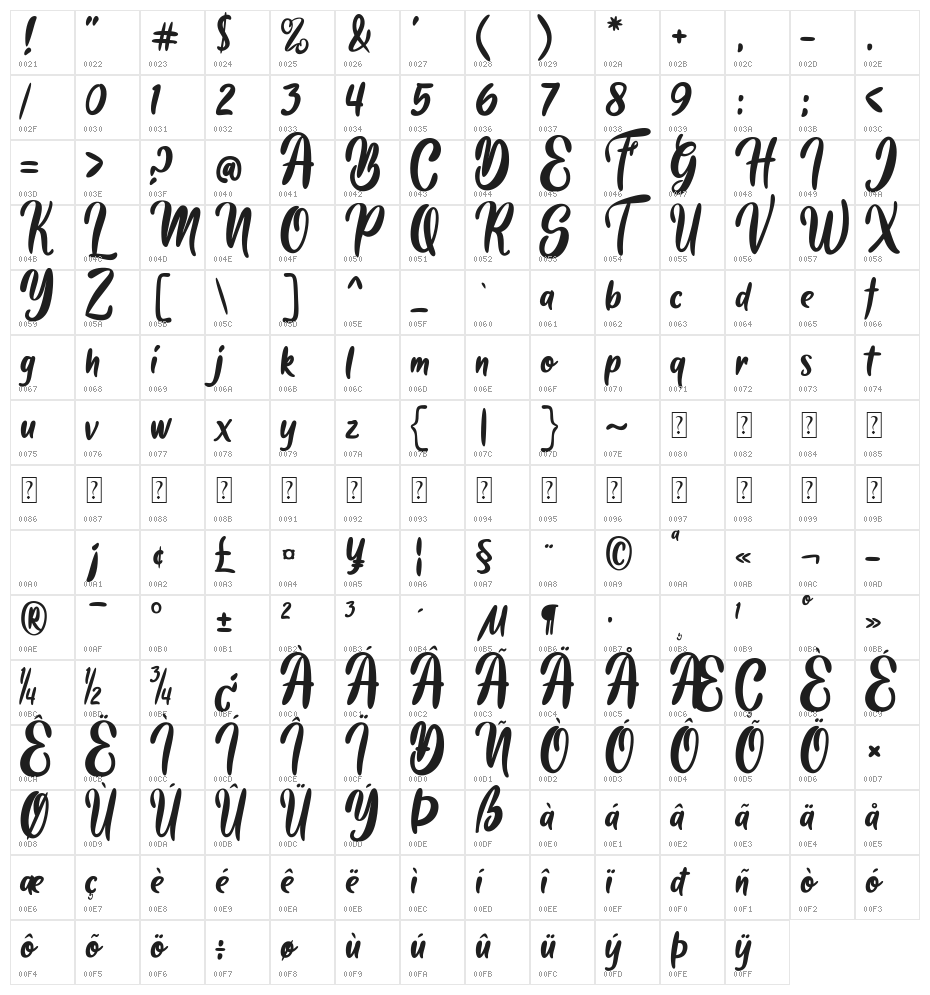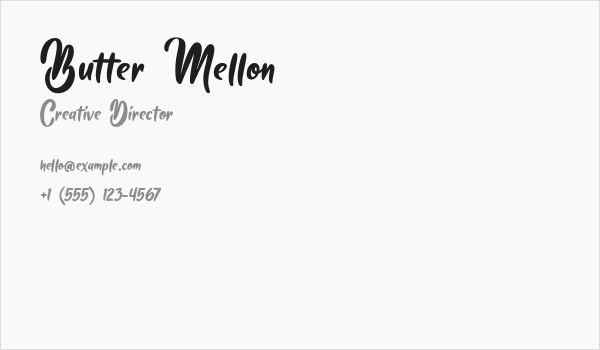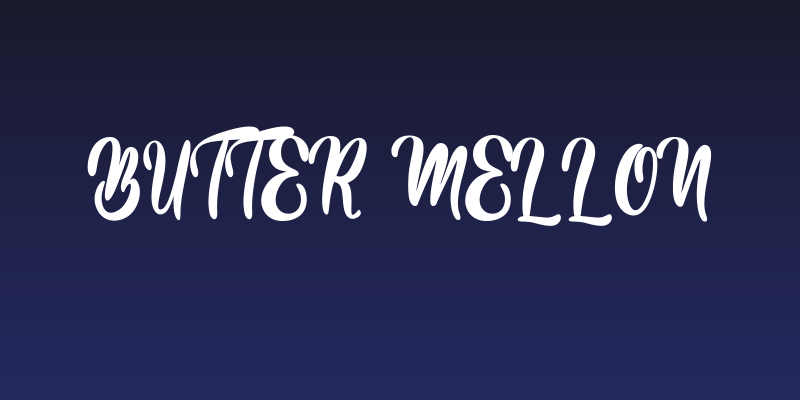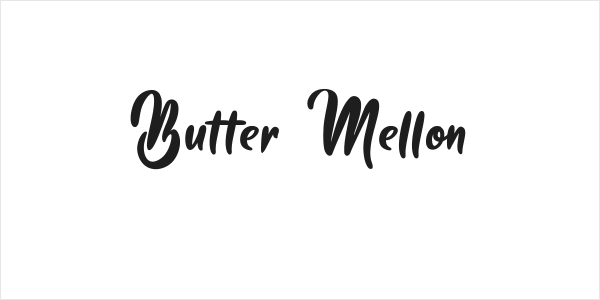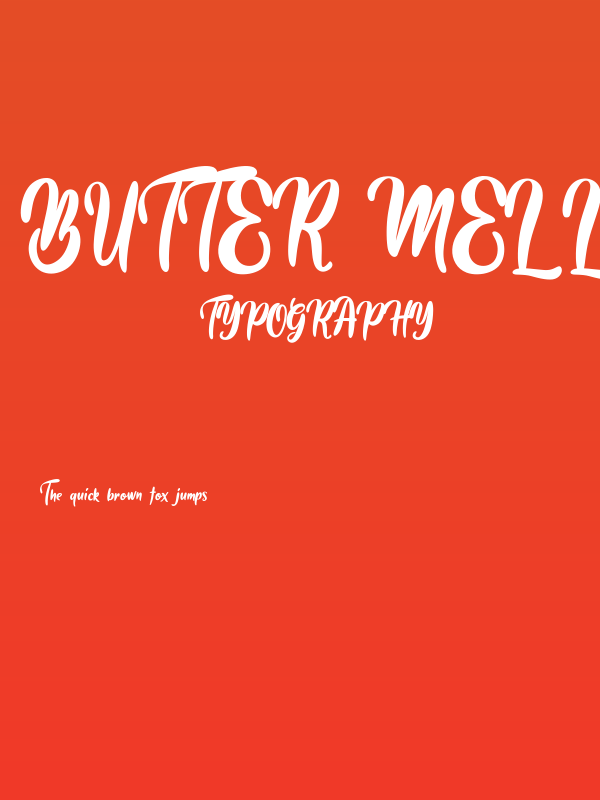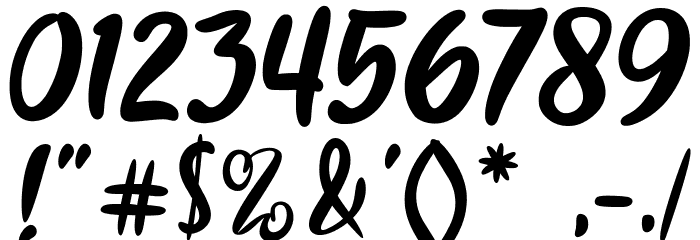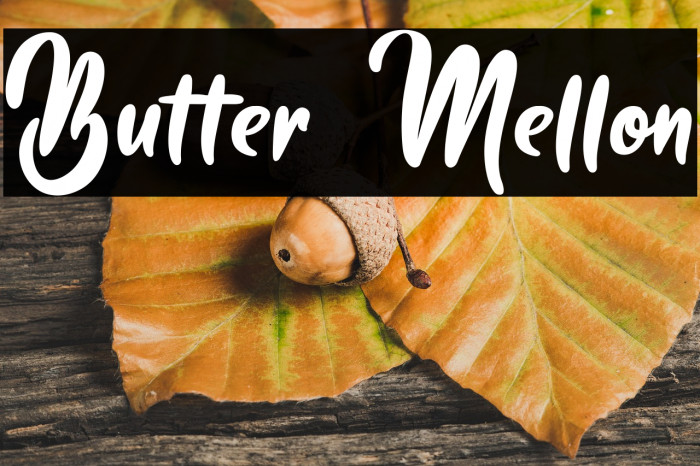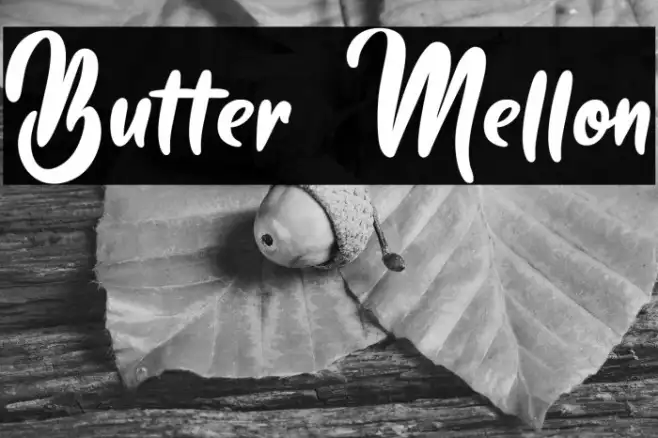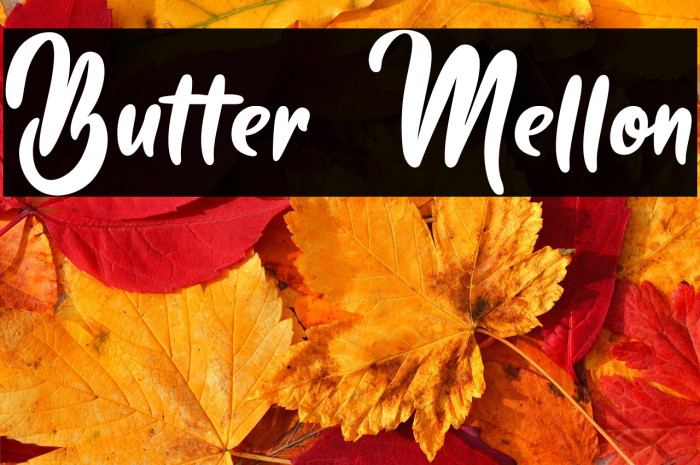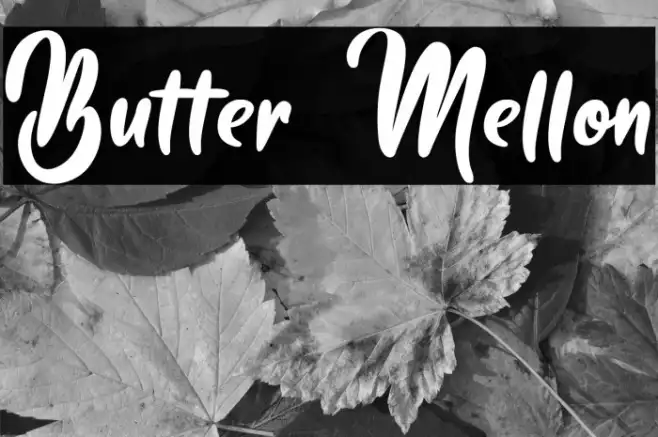
Butter Mellon Font
Butter Mellon Description
This font features a bold and expressive script style with a dynamic flow, characterized by its thick, rounded strokes and smooth curves. The uppercase letters exhibit a playful yet elegant design, while the lowercase letters maintain a consistent rhythm and balance. The numerals are bold and easily readable, complementing the overall aesthetic. Special characters are creatively integrated, adding to the font's versatility. The design is both modern and approachable, making it suitable for a variety of creative applications.
| Proposed Projects | Ideal for branding, packaging, invitations, and social media graphics. |